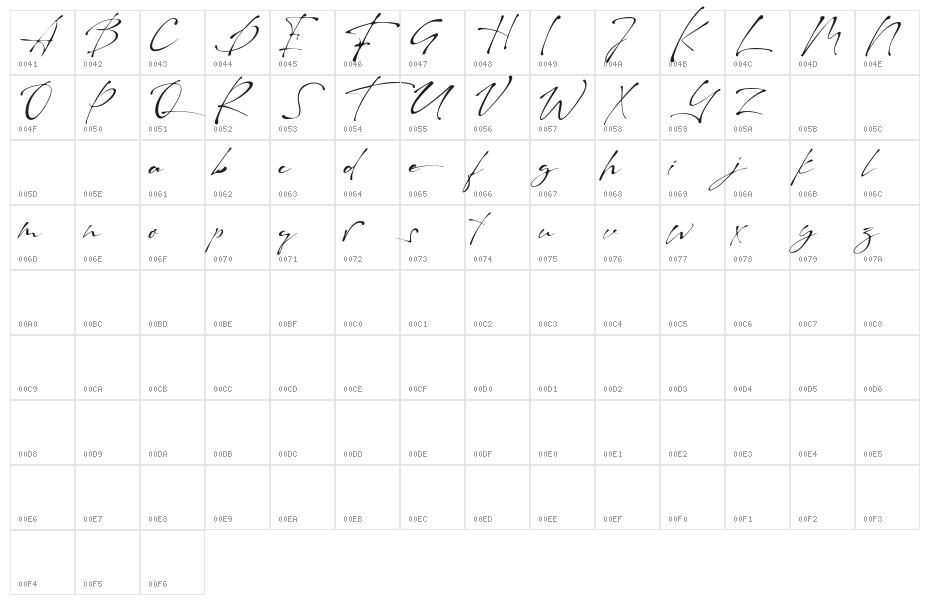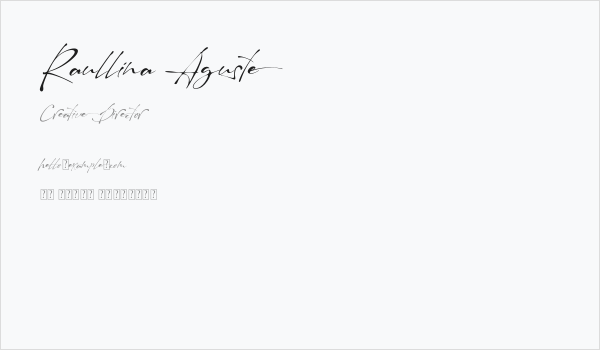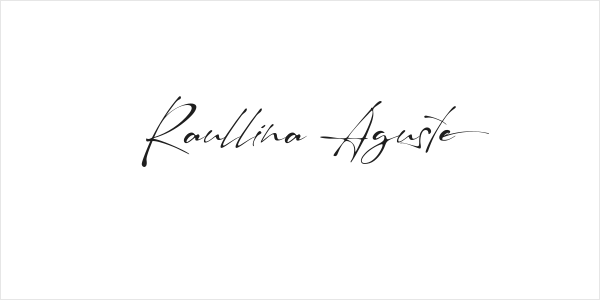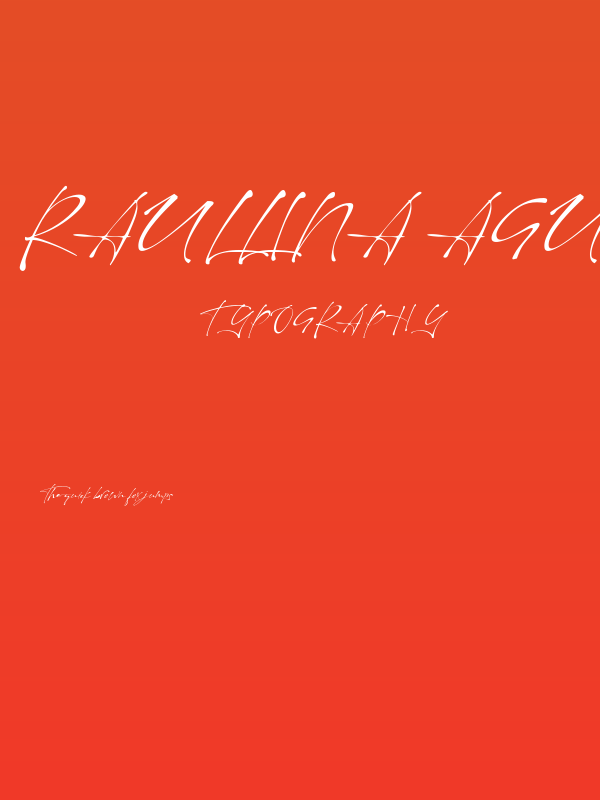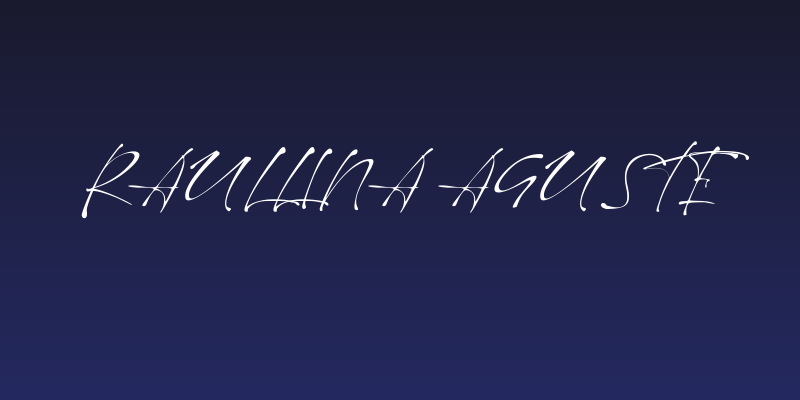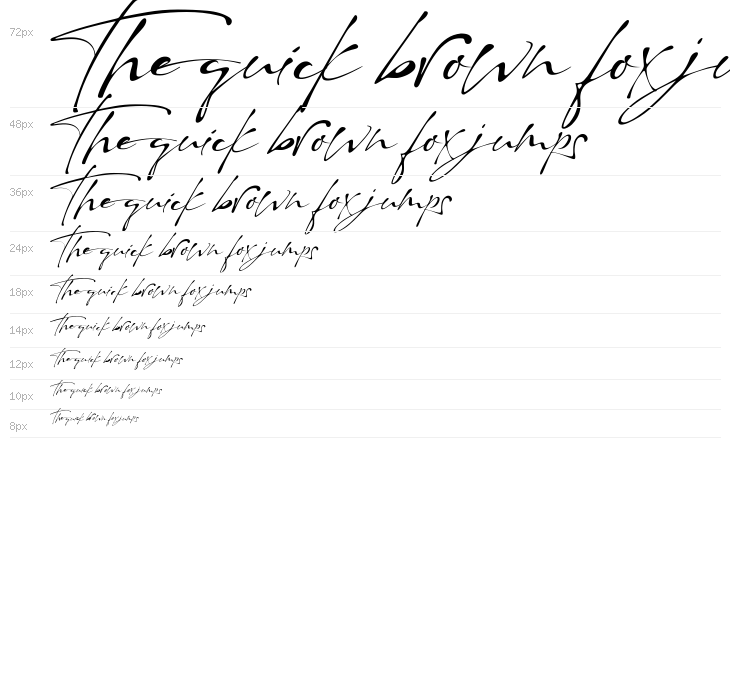
Raullina Aguste Font
Raullina Aguste Description
This font exudes a dynamic and expressive style, characterized by its fluid, cursive script that mimics the natural flow of handwriting. The letters are elegantly elongated with a slight slant, giving them a sophisticated and artistic appearance. The strokes vary in thickness, adding a sense of movement and energy to the text. This font is perfect for projects that require a personal touch, as it captures the essence of handwritten notes or letters. Its unique style makes it suitable for creative designs, invitations, and branding that aim to convey elegance and individuality.
| Overall Style | Artistic |
| Proposed Projects | Ideal for wedding invitations, personal branding, artistic projects, and elegant stationery. |